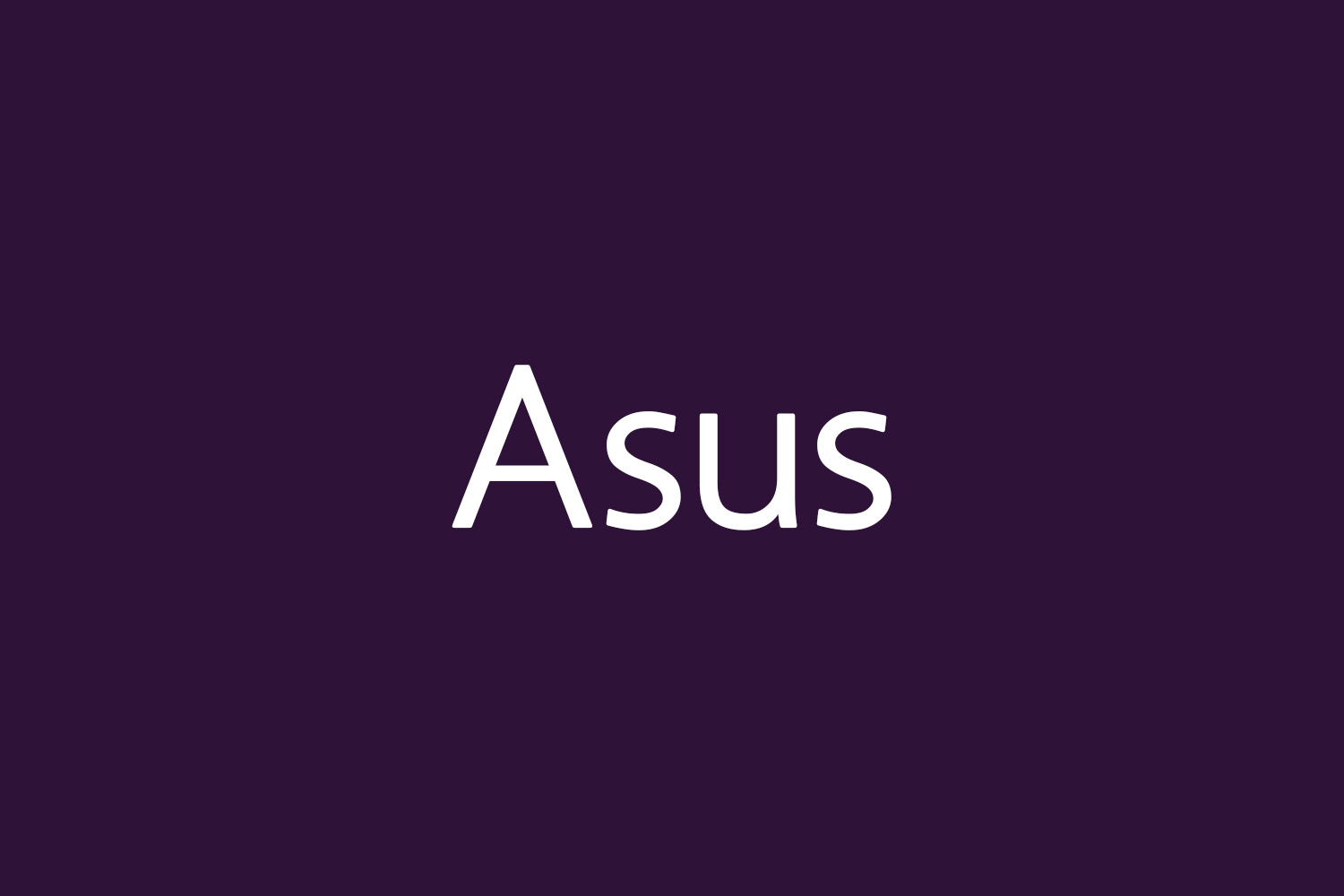
Asus Free Font Family has a distinctive type design to display a depth of round corners (you can barely see around corners depending on the size of the font) and solidity of humanism. It isn’t necessarily a typeface to take the steps of a “tried and tested” sequence, it’s to spice up the lightheartedness of digital brands of individuals to where the typeface is used for technology, epic projects, personal banners, personal signages, and the rest of the like. A fixed-width monospace variant of Asus is also useful for terminal emulation, forms of programming, and anything that individuals use with monospace typefaces. Even the monospace typeface out of the family shows quality at a 12 pt size regardless of which style is set for it.